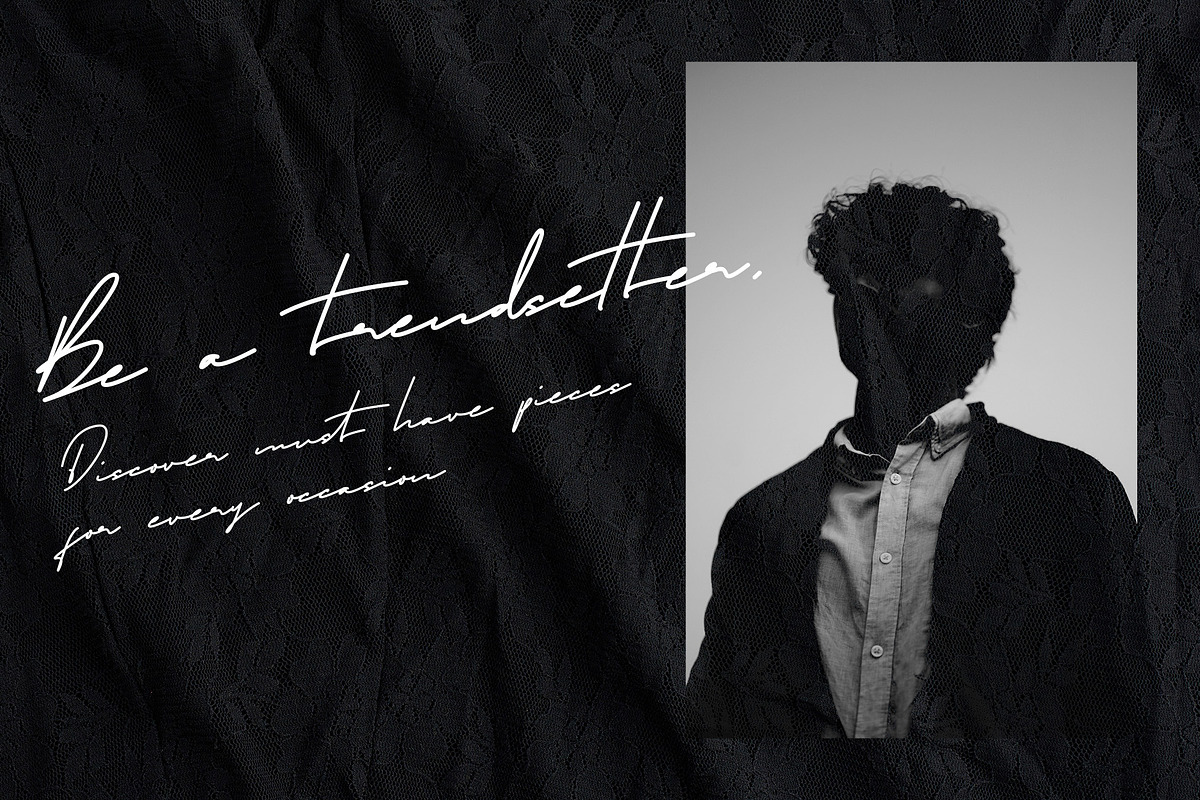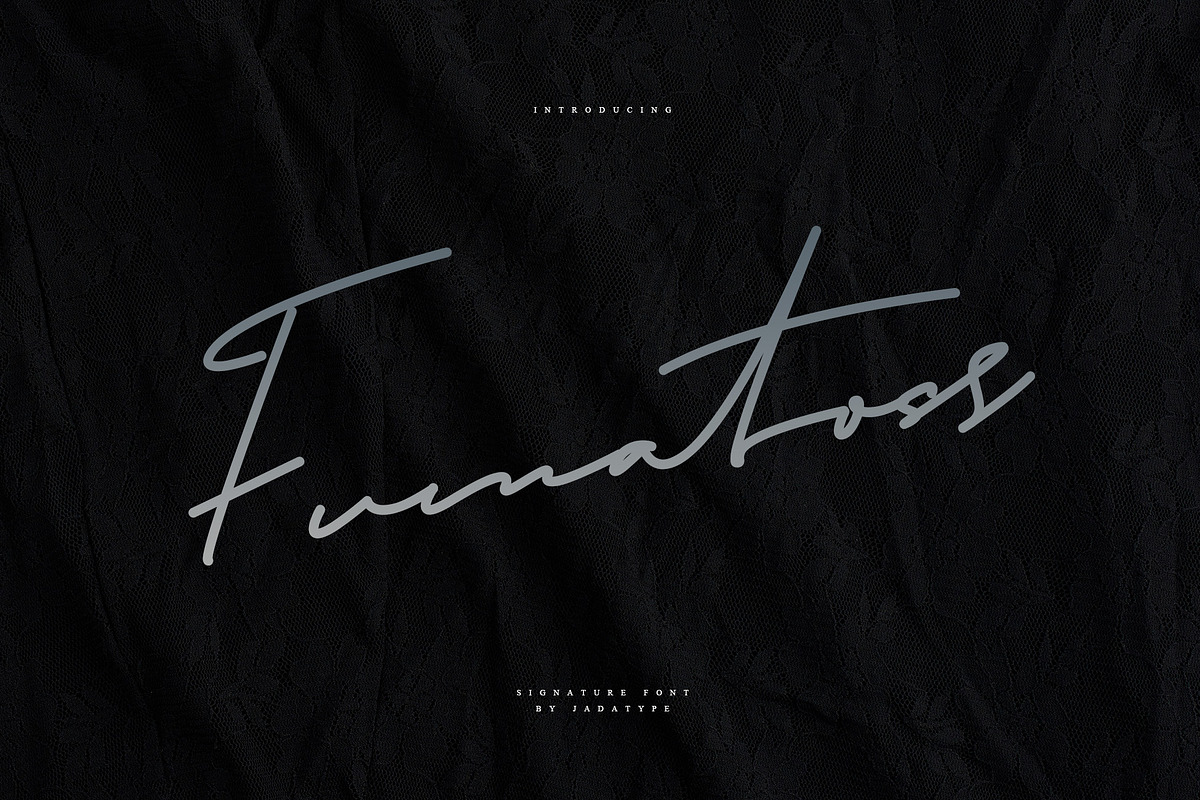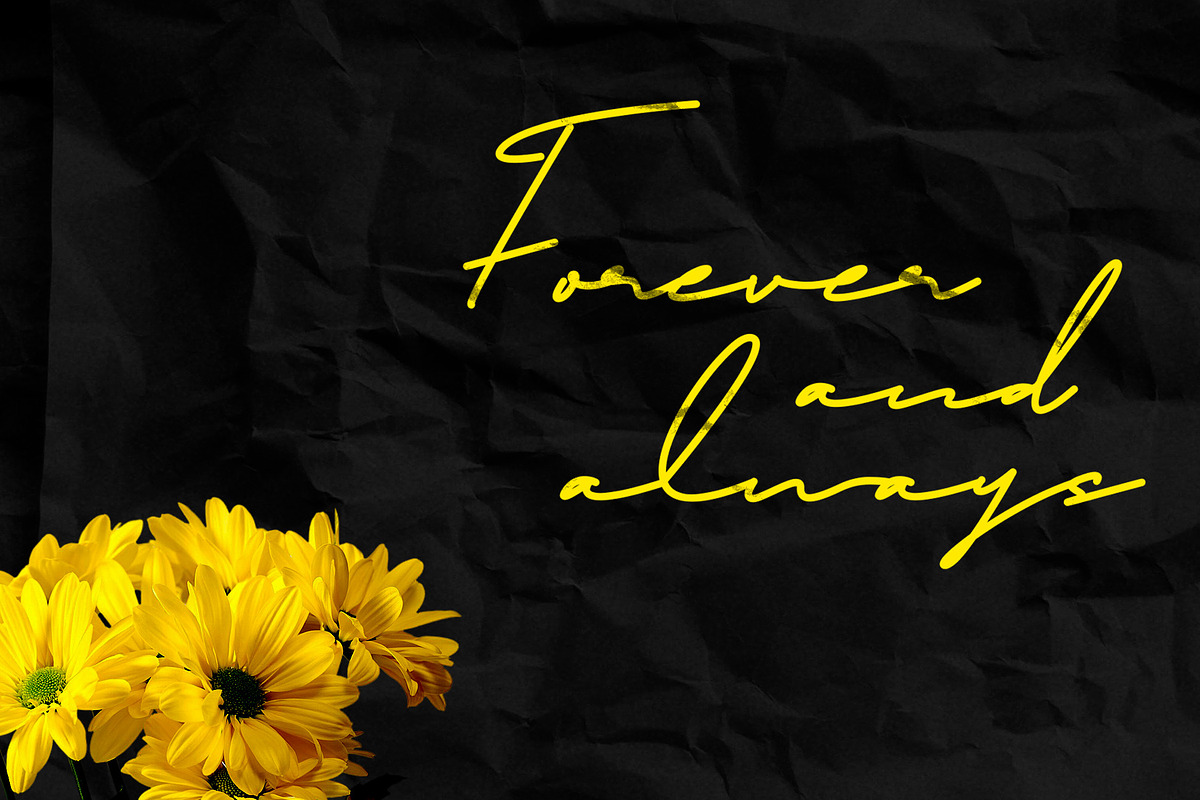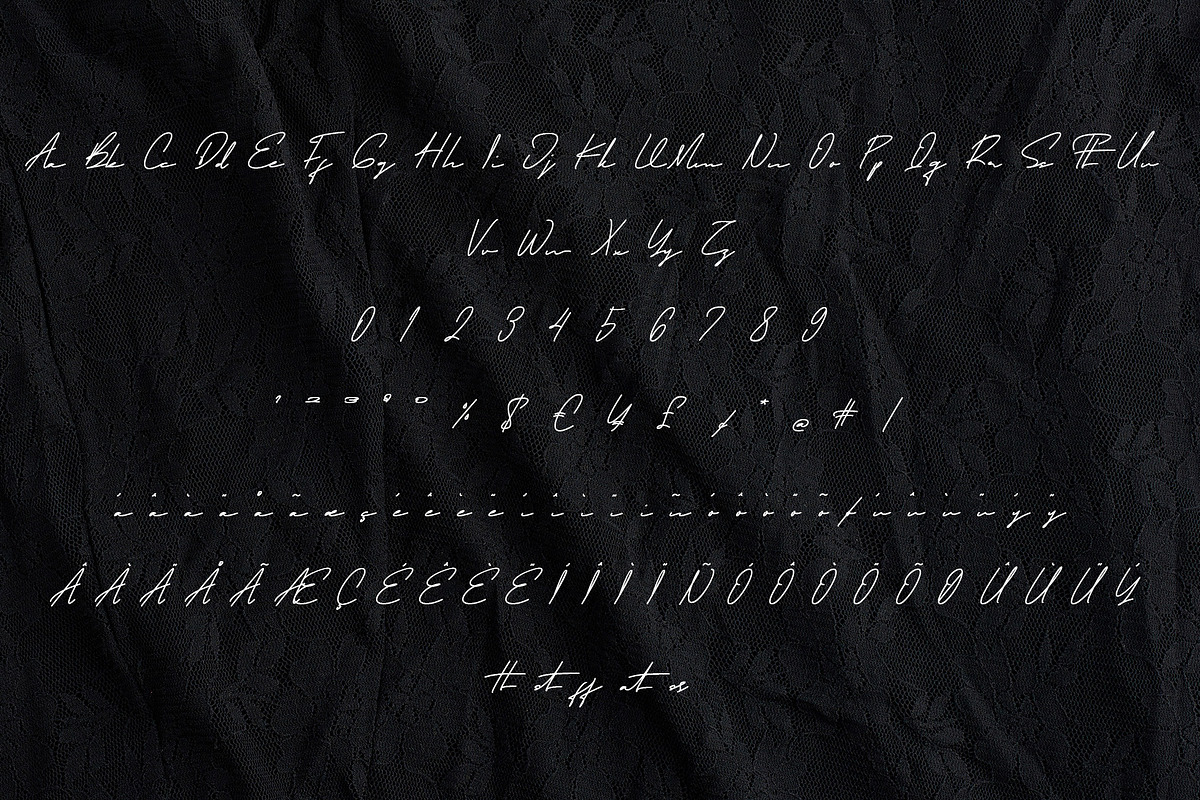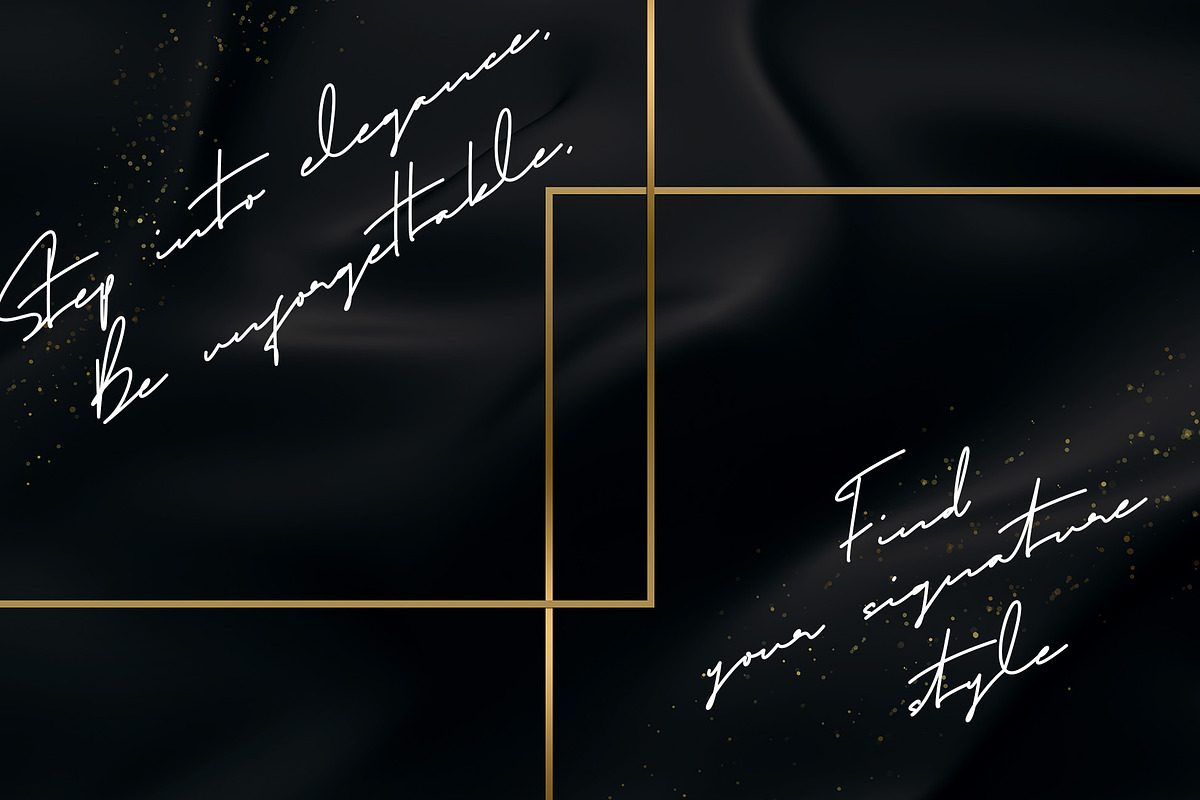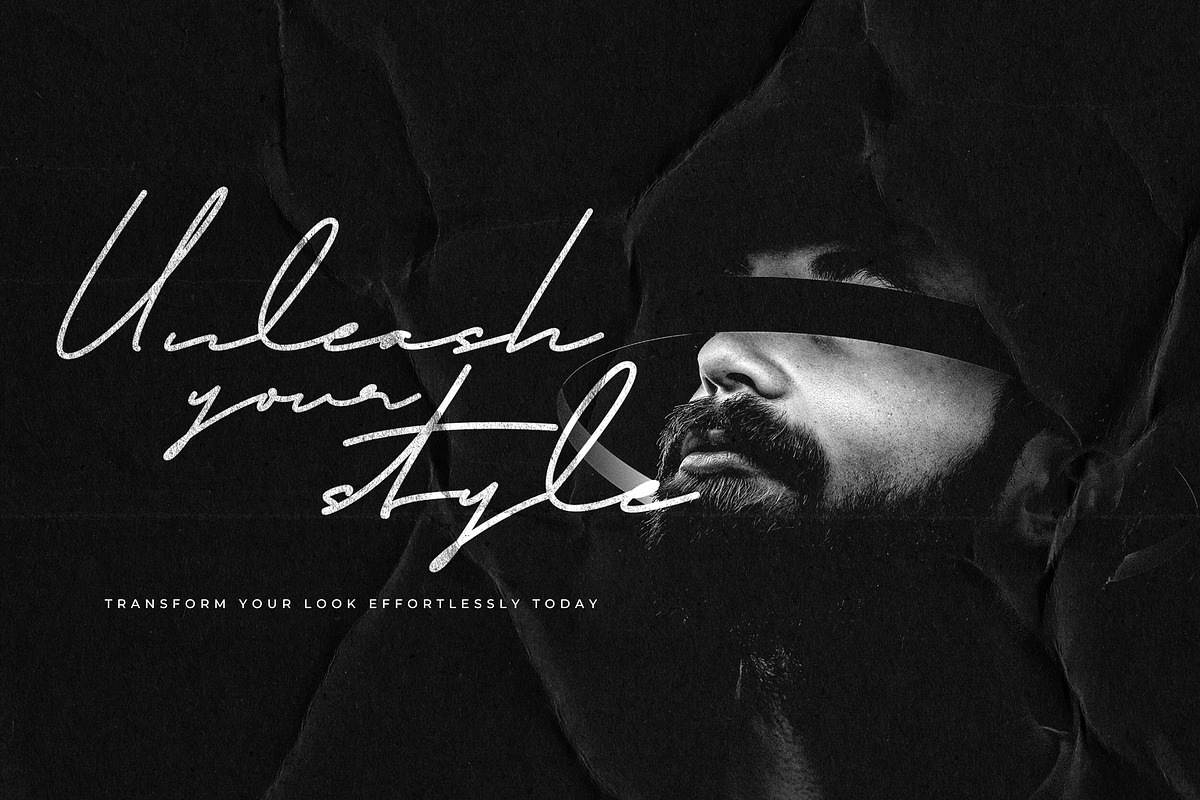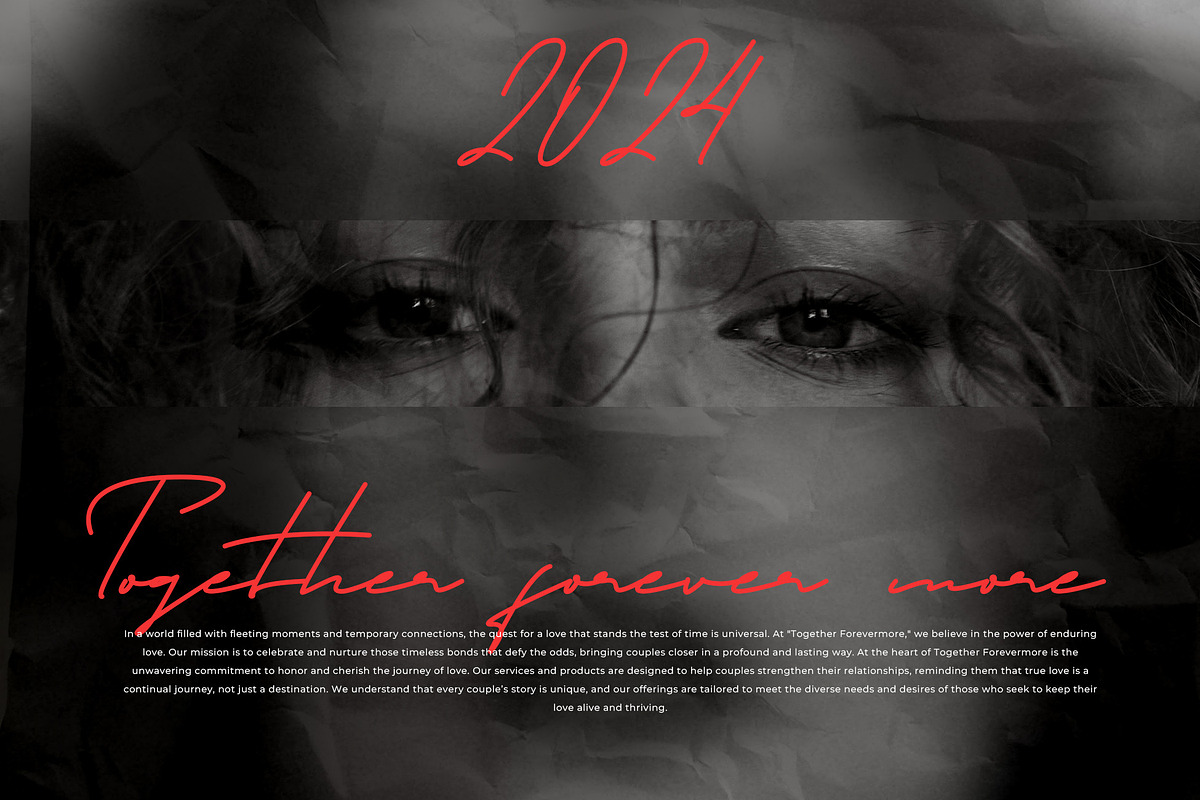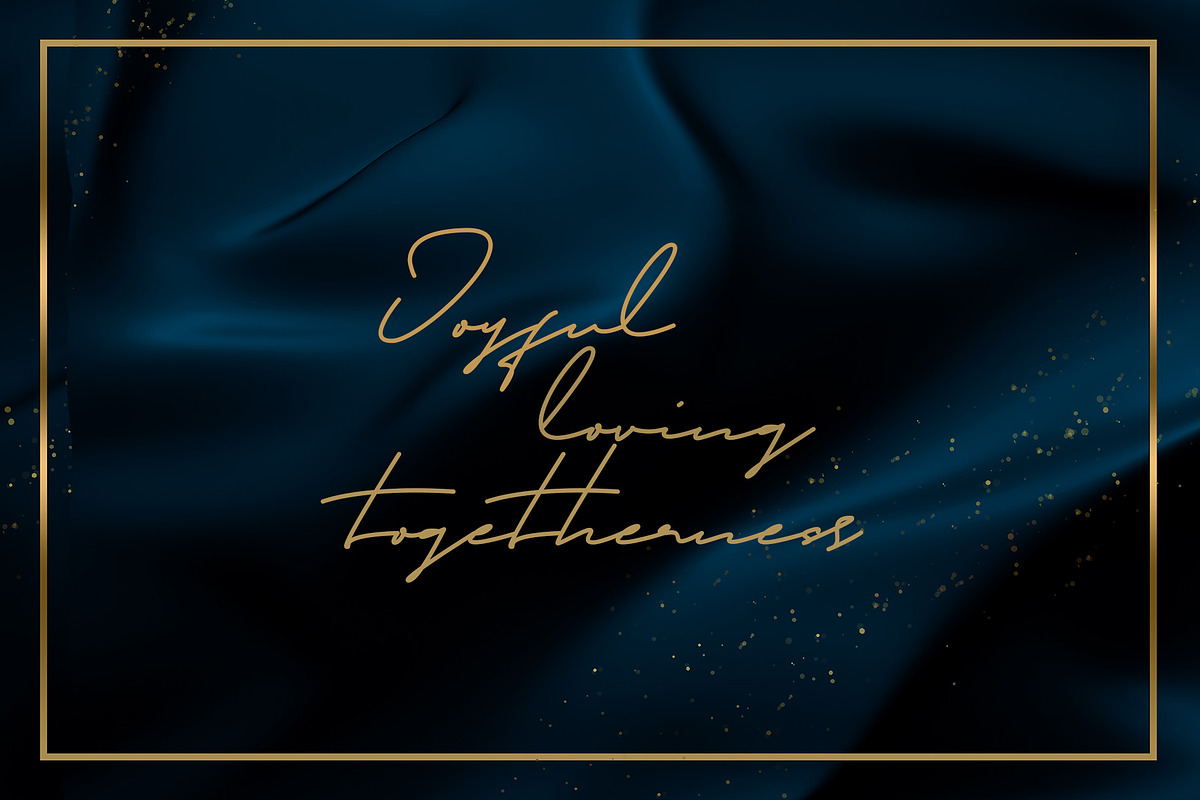
Fumatoss Font | Singleline Signature
Fumatoss is a Single-Line or Monoline Font that comes with Signature Style. Suitable for product, Branding, social media, logotype and so on. contains standard English letters, numbers, punctuation, and several accents that support multilingualism.